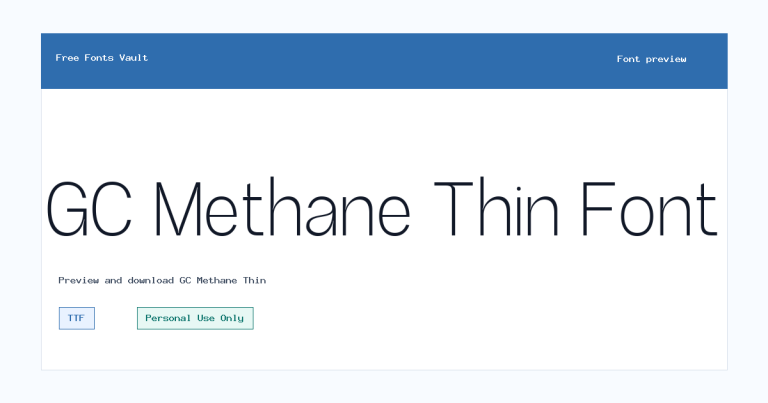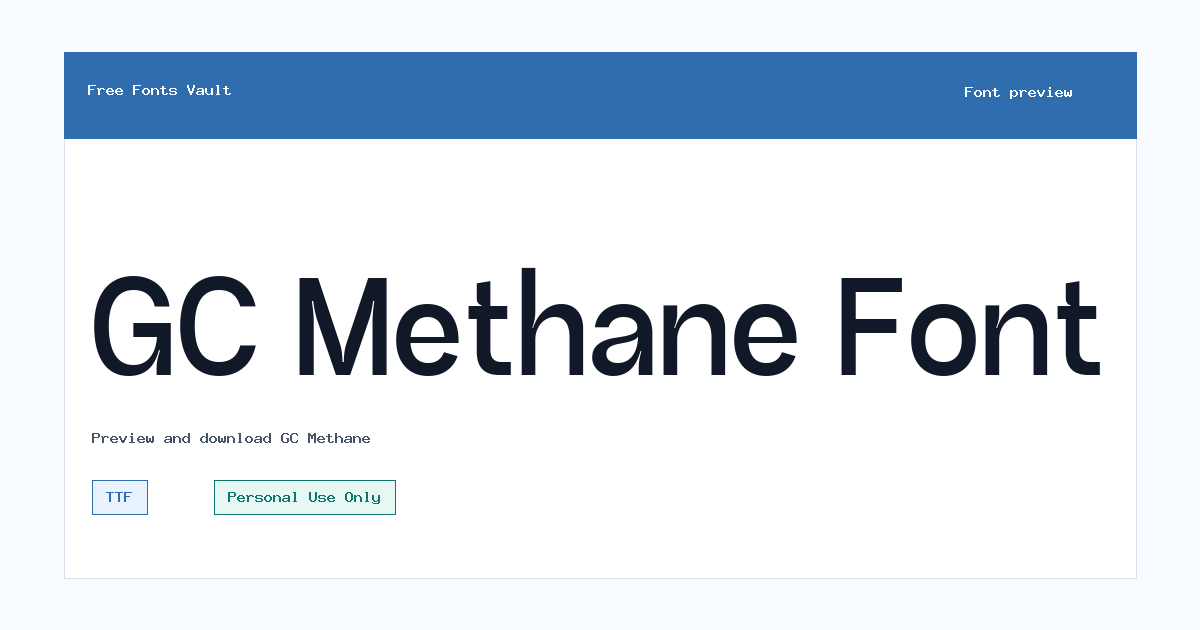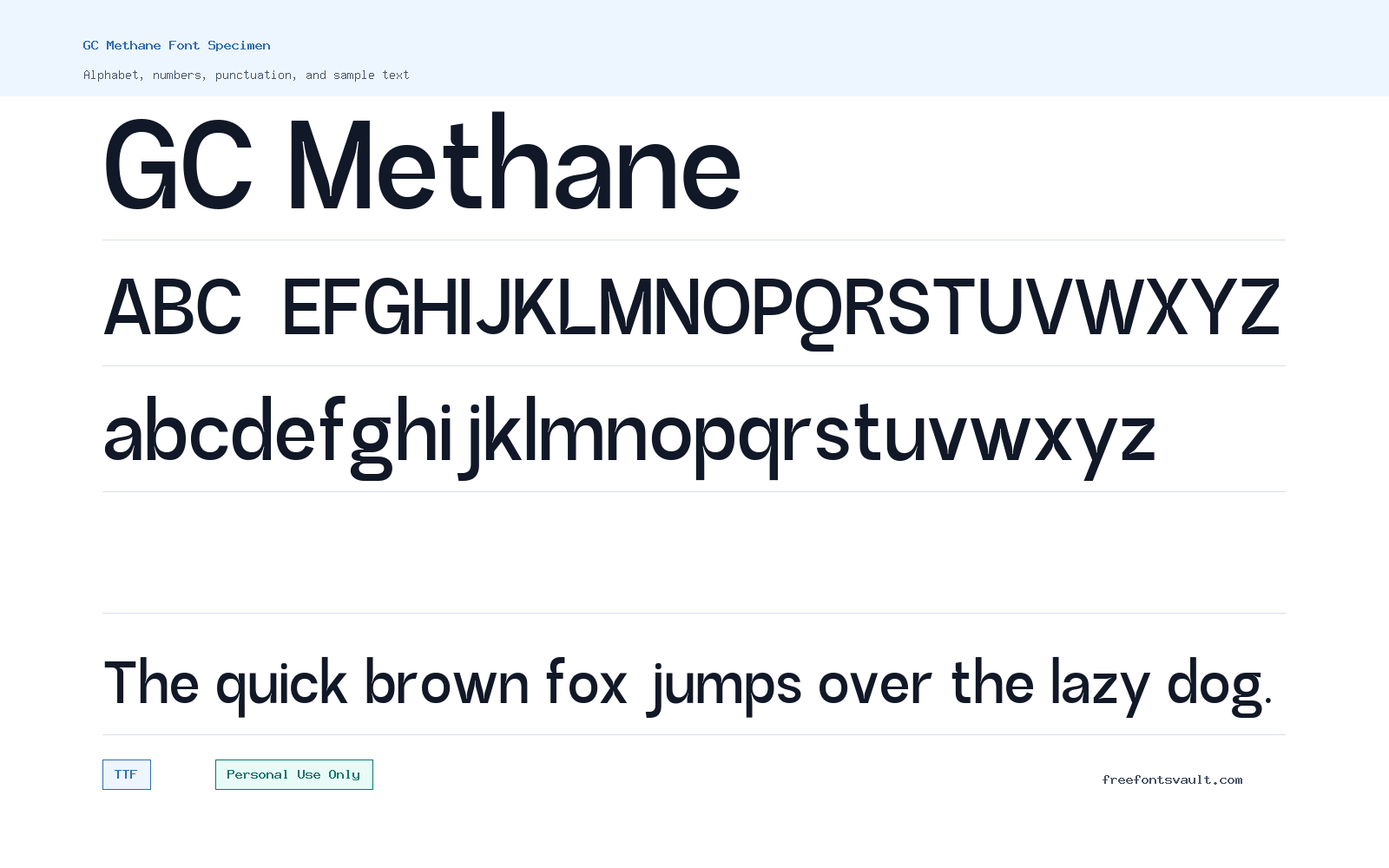
GC Methane
- Designer Ken Priska Dewirani of Glyphonic
GC Methane is a sans serif font family with a demo regular style and a bold style, made for personal-use projects where you need a clean but noticeable display typeface.
About GC Methane
GC Methane works best when you use it with intention. The family name suggests a modern sans serif direction, and the available files give you two useful weights: regular and bold. That makes it practical for simple title systems, poster mockups, social graphics, logo drafts, and layout testing where you want one lighter text option and one stronger headline option. Because only the demo TTF files are listed, it is better to treat GC Methane as a preview or personal project font rather than a finished commercial brand asset unless you have confirmed the full license from the creator or foundry.
For designers, the safest way to judge GC Methane is to test real words in the preview tool before downloading. Try your brand name, a short poster headline, button text, and a few mixed-case phrases. Sans serif display fonts can look sharp in large sizes but may lose character or readability in long paragraphs, so keep it to headings, labels, covers, packaging concepts, and web mockup hero text. Use the bold style when the message needs more presence, and use the regular style when you want a calmer title or supporting line.
- Sans serif family style suited to short display text, headings, logo drafts, posters, and digital mockups.
- Regular weight can work for secondary titles, captions, or cleaner preview text where the bold style feels too heavy.
- Bold weight is useful for stronger headlines, thumbnail text, cover mockups, and high-impact short phrases.
- Personal poster designs and event graphics
- Logo concepts and early brand mockups
- Website hero section mockups
- Social media title graphics
- YouTube thumbnails or cover images for non-commercial use
- Typography experiments and font pairing tests
- Short headlines, labels, and display text
- Portfolio concept work where the final license will be checked before release
Use GC Methane for short text first. Test uppercase and lowercase words, numbers, spacing, and punctuation in the preview area before downloading. For logo work, start with the bold style for the main wordmark and compare the regular style for taglines. For posters and web mockups, keep paragraphs in a neutral readable text font and let GC Methane handle the title or accent line. Good pairings usually come from contrast: try it with a simple humanist sans, a plain system sans, or a quiet serif for body text. Avoid pairing it with another strong display font unless you want a busy, experimental look.
What is GC Methane best used for?
It is best suited to short display text such as titles, posters, social graphics, web hero mockups, logo drafts, labels, and visual experiments.
Is GC Methane good for body text?
It is better to test it carefully before using it for body text. With the available regular and bold styles, it is more practical for headings and short phrases than long reading passages.
Who designed GC Methane?
GC Methane is credited to Ken Priska Dewirani of Glyphonic.